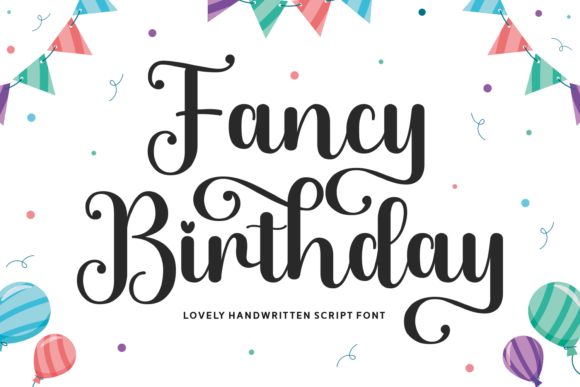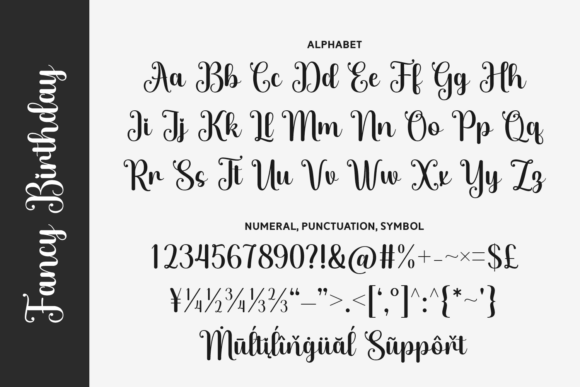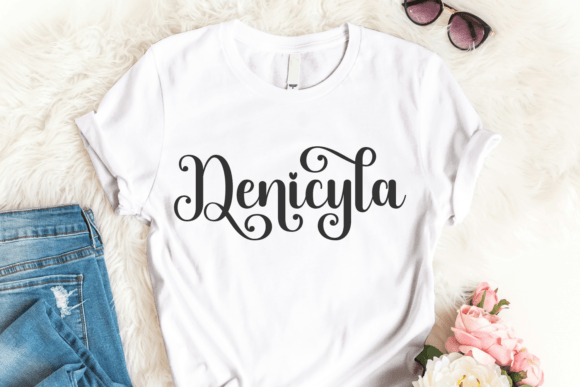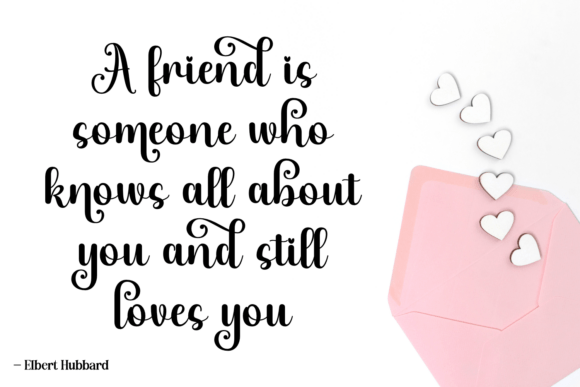
Fancy Birthday Font
About the Fancy Birthday Font
Let us introduce you to Fancy Birthday Font, where timeless design meets modern craftsmanship. Fancy Birthday is a cheerful handwritten script font filled with charm and celebration. Its playful swashes and heartwarming details make it perfect for party invitations, greeting cards, festive designs, and fun branding projects. Whether you’re designing for birthdays, holidays, or any joyous occasion, Fancy Birthday adds a delightful and lively touch to your creative work.
Its highly decorative nature makes it ideal for headlines, short taglines, and logos requiring a whimsical feel. Avoid using it for body text or lengthy paragraphs; its playful swashes hinder readability at smaller sizes. Consider pairing it with a clean sans-serif like Open Sans for a balanced contrast, or a more geometric sans-serif like Montserrat for a modern twist.
Fancy Birthday’s core personality is undeniably cheerful and playful, making it a great fit for brands focused on fun, celebrations, or children’s products. It works exceptionally well for packaging design of celebratory items and posters promoting events. Avoid using it for projects requiring sophistication or a serious tone.
For a more sophisticated yet complementary pairing, a simple serif typeface such as Lora can add a touch of elegance, while still allowing Fancy Birthday to maintain its festive presence. Pairing it with a script font would likely be overwhelming, while a slab serif would clash with its handwriting-inspired style.
Fancy Birthday Font Usage Examples
Fancy Birthday Font Example